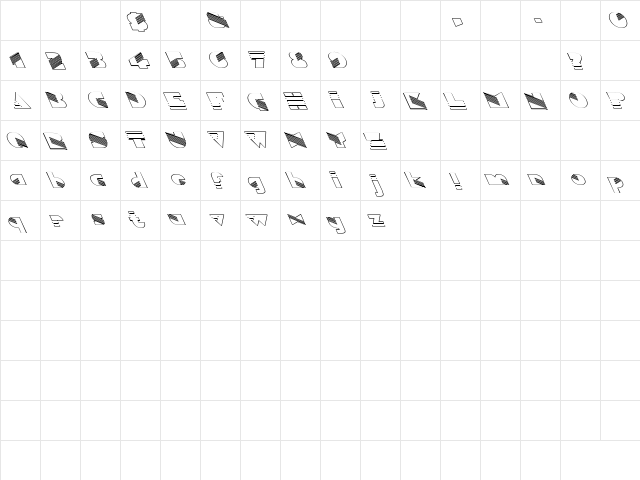
Sinaloa Hollow Extreme Leftie Regular
Design Context for Sinaloa Hollow Extreme Leftie Typeface
Sinaloa Hollow Extreme Leftie is a composed and adaptable typeface that performs quietly and consistently across a wide range of design contexts.